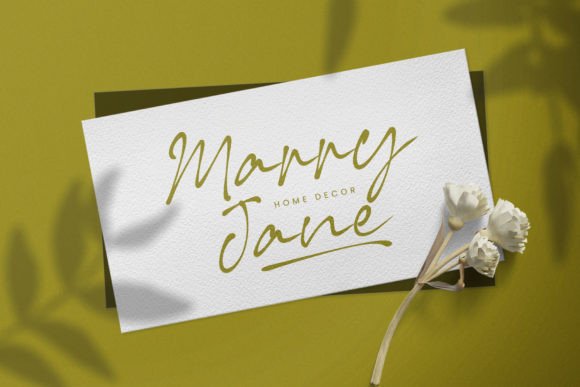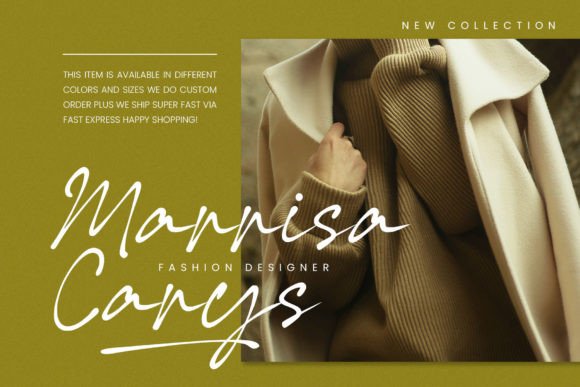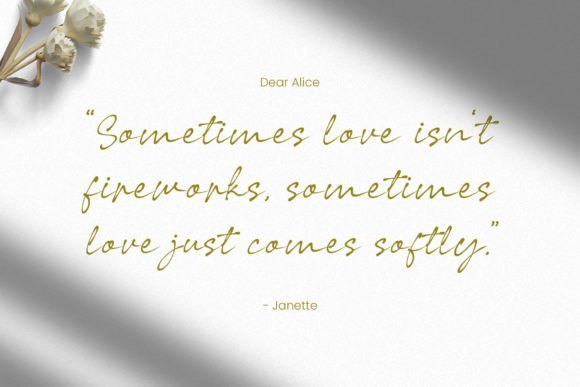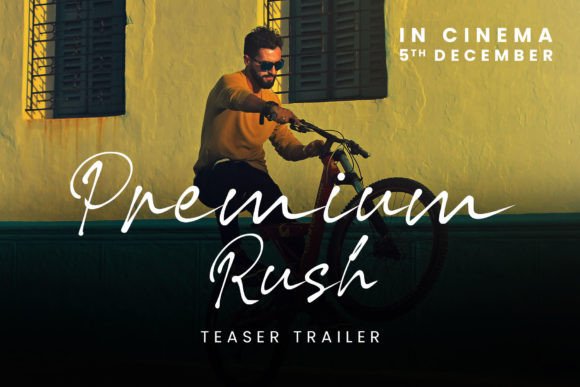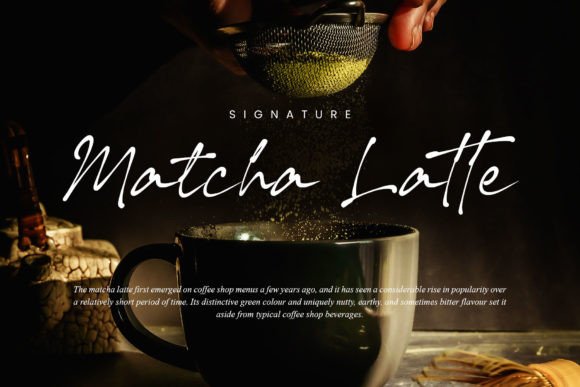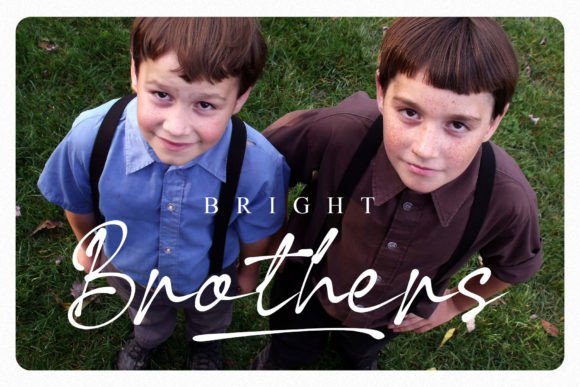
Introduction to Heynitta Font
Have you ever been working on a creative project, and suddenly, the perfect font just pops into your mind? For many designers, that moment of inspiration can make all the difference between a good design and a great one. And that’s exactly what happened when the Heynitta Font was created – a classy signature font that brings a touch of elegance and sophistication to any project.
With its unique ink splash style, the Heynitta Font is a game-changer for designers looking to add a bit of personality to their work. Whether you’re creating wedding invitations, designing labels, or developing logotypes, this high-quality font is sure to impress. And the best part? It’s available for free download, making it an invaluable resource for any creative project.
So, what makes the Heynitta Font so valuable for designers? For starters, its transparent background makes it easy to customize and combine with other design elements. Plus, its unique style is sure to stand out from the crowd, giving your designs a one-of-a-kind touch. In this article, we’ll dive deeper into the world of the Heynitta Font and explore its many uses and benefits.
Key Features of Heynitta Font
- Unique and creative design ideal for various creative projects
- Transparent background, making it easy to customize and use in design resources
- Supports various languages, including English, Spanish, French, and more
- High-resolution fonts, ideal for use in print and digital design applications
- Perfect for designers looking for a unique and high-quality design resource for their creative project
Honest Review: Heynitta Font
As a designer, I’m always on the lookout for high-quality fonts to elevate my creative projects. I recently stumbled upon the Heynitta Font, and I must say, it’s been a game-changer.
- ✨ Unique aesthetic: The Heynitta Font boasts a distinctive, elegant design that’s perfect for luxury or high-end branding projects.
- ✨ High-resolution quality: The font is available in high-resolution formats, ensuring that it looks crisp and clear on any design surface.
- ✨ Transparent background: This font has a transparent background, making it easy to layer with other design elements.
- ⚠️ Limited language support: The Heynitta Font primarily supports Latin-based languages, which may be a drawback for designers working on projects that require non-Latin scripts.
- ⚠️ No bold or italic versions: While the font has a range of weights, it doesn’t offer bold or italic versions, which may limit its versatility.
Overall, the Heynitta Font is an excellent addition to any designer’s toolkit. While it has its limitations, its unique aesthetic and high-quality design make it a valuable resource for any creative project.
In PowerPoint or Word, select the text element you want to edit and choose the Heynitta Font from the font library. You can adjust the font size, color, and style to suit your presentation or document. The font’s unique design makes it perfect for creating visually appealing titles and headings.
Tips for Getting the Most Out of Heynitta Font
To get the most out of the Heynitta Font, experiment with different font sizes, colors, and styles to create a unique look. You can also combine the font with other design elements to create a visually appealing design.
The Heynitta Font is perfect for creating eye-catching headings and titles for presentations, documents, and websites. It’s also ideal for designing logos, business cards, and other marketing materials.